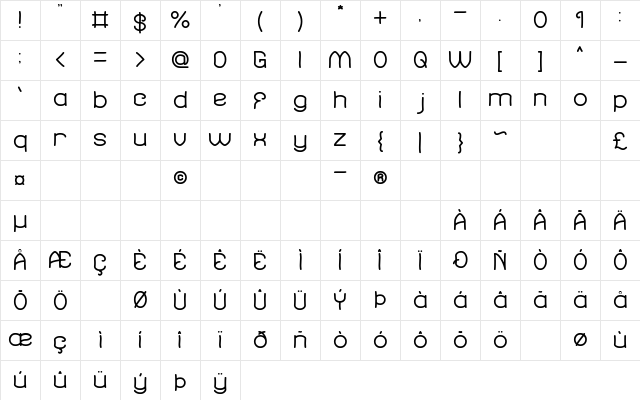
Soup Recipe-Light Regular
Design Context for Soup Recipe-Light Typeface
Soup Recipe-Light offers clean, dependable letterforms without strong stylistic allegiance, making it a practical choice for designers who need flexibility. The delicate stroke weight brings airiness and refinement to layouts.